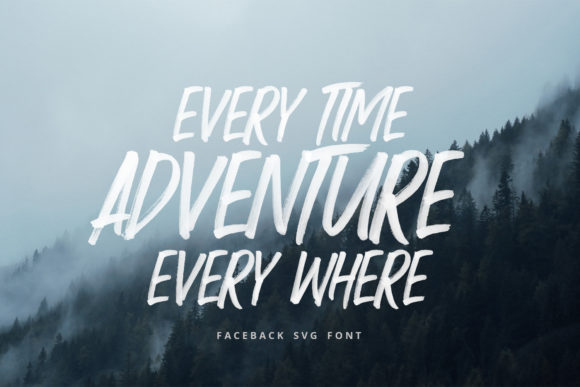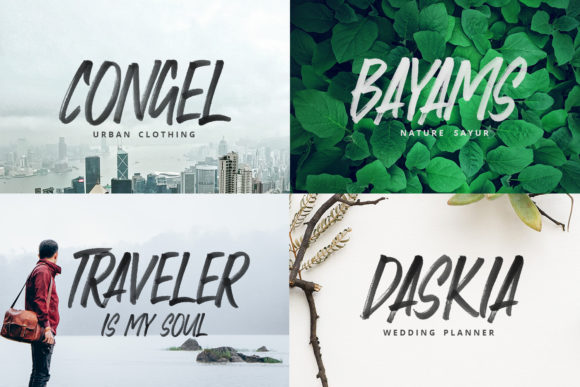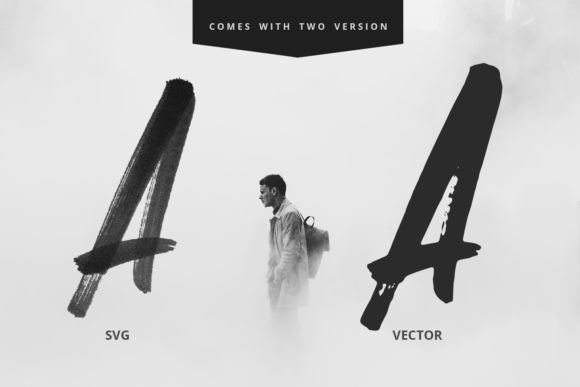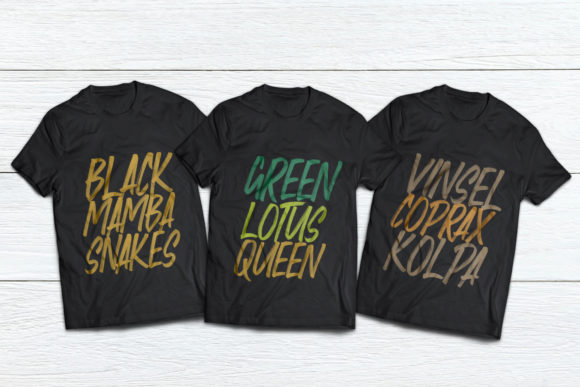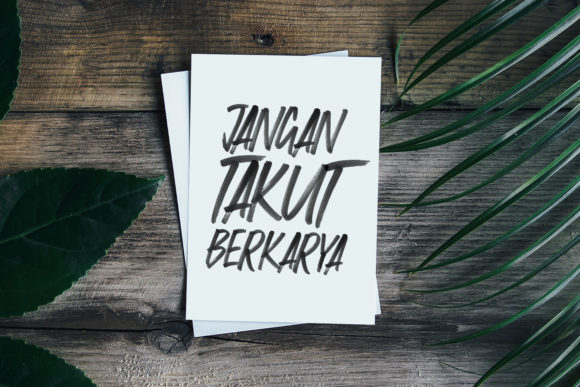
Introducing Faceback Font: Add a Touch of Urban Grit to Your Designs
Are you looking for a font that can add a rough, urban edge to your designs? Look no further than Faceback Font, a unique SVG font with a brushed texture that’s perfect for creating logos, posters, packaging, advertisements, headlines, and more. In this article, we’ll dive into the features and benefits of Faceback Font, and explore how you can use it to elevate your designs.
What is Faceback Font?
Faceback Font is a color font, specifically an Opentype-SVG font, which means it’s a highly versatile and dynamic font that can be used in a variety of design applications. The font features a brushed texture that gives it a rough, urban feel, making it perfect for designs that need a bit of grit and attitude.
Key Features of Faceback Font
- Unique Brushed Texture: Faceback Font features a distinctive brushed texture that sets it apart from other fonts. This texture gives the font a rough, urban feel that’s perfect for designs that need a bit of edge.
- High Level of Accuracy: The level of accuracy contained in Faceback Font is very sharp, making it perfect for designs that require precision and attention to detail.
- Color Font: As an Opentype-SVG font, Faceback Font is a color font that can be used in a variety of design applications, from logos and branding to packaging and advertising.
How to Use Faceback Font in Your Designs
Faceback Font is a versatile font that can be used in a wide range of design applications. Here are a few ideas to get you started:
- Logos and Branding: Use Faceback Font to create a bold, urban logo that sets your brand apart from the competition.
- Posters and Advertising: Add a touch of grit and attitude to your posters and advertising with Faceback Font.
- Packaging: Use Faceback Font to create eye-catching packaging that stands out on store shelves.
- Headlines and Titles: Use Faceback Font to add a bold, urban touch to your headlines and titles.
Tips for Getting the Most Out of Faceback Font
Here are a few tips for getting the most out of Faceback Font:
- Experiment with Different Colors: As a color font, Faceback Font can be used in a variety of colors and combinations. Experiment with different colors to find the perfect look for your design.
- Play with Texture: Faceback Font features a distinctive brushed texture. Play with this texture to add depth and interest to your designs.
- Use it with Other Fonts: Faceback Font can be paired with other fonts to create a unique and interesting look. Experiment with different font combinations to find the perfect look for your design.
Faceback Font is a unique and versatile font that’s perfect for designers and crafters looking to add a touch of urban grit to their designs. With its distinctive brushed texture, high level of accuracy, and compatibility with popular design software, Faceback Font is a great choice for a wide range of design applications. Whether you’re creating logos and branding, posters and advertising, or packaging and headlines, Faceback Font is a great way to add a bit of edge and attitude to your designs.